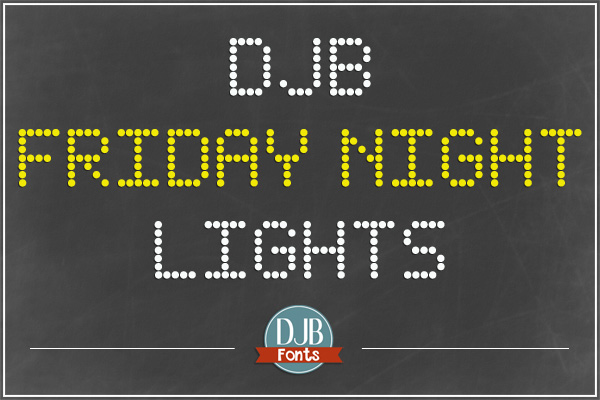
Preview and download DJB Friday Night Lights Font. Created by Darcy Baldwin in Techno LCD styles with Free for personal use license.
This font is free for personal use only. This sports & theater themed font contains full alphabet, numbers and most common punctuation. It is free for personal use only. Please purchase a commercial use license at: http://darcybaldwin.com/commercial-use/ https://www.facebook.com/DarcyBaldwinFontography |